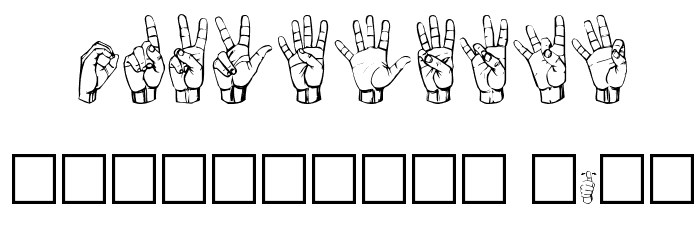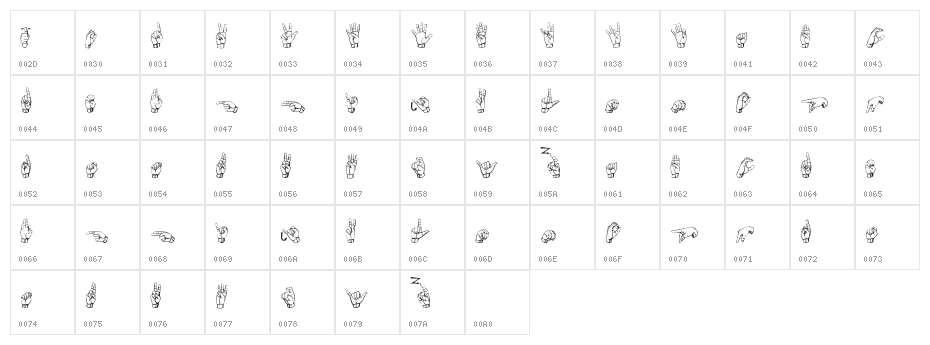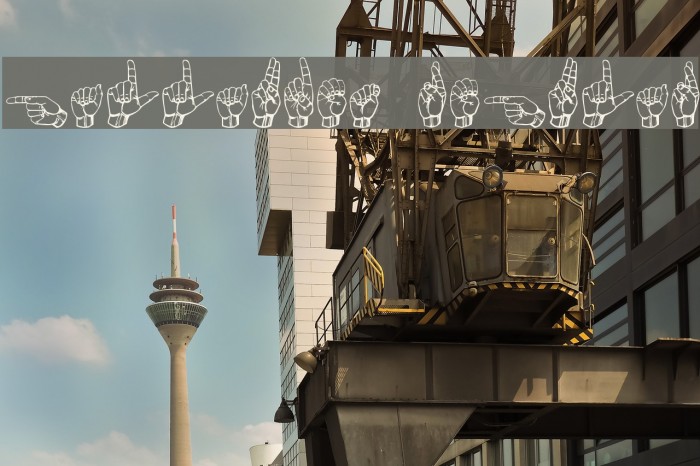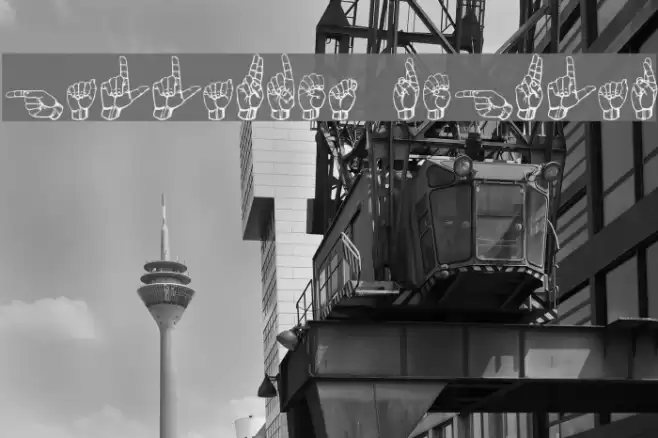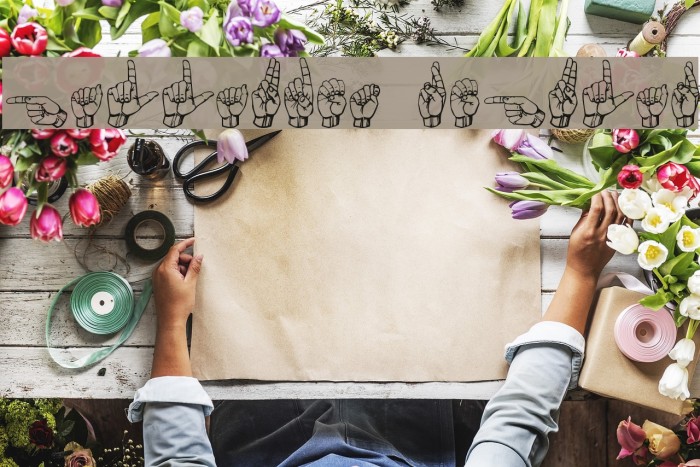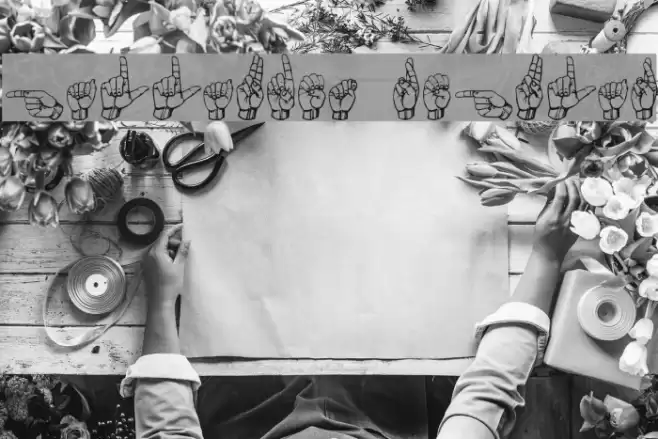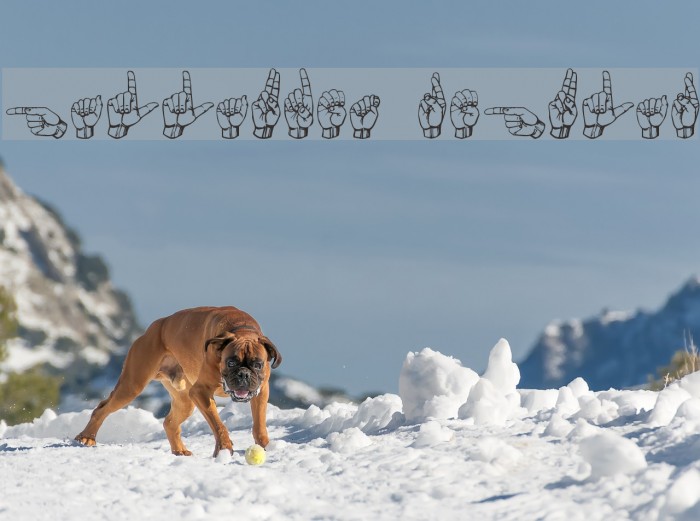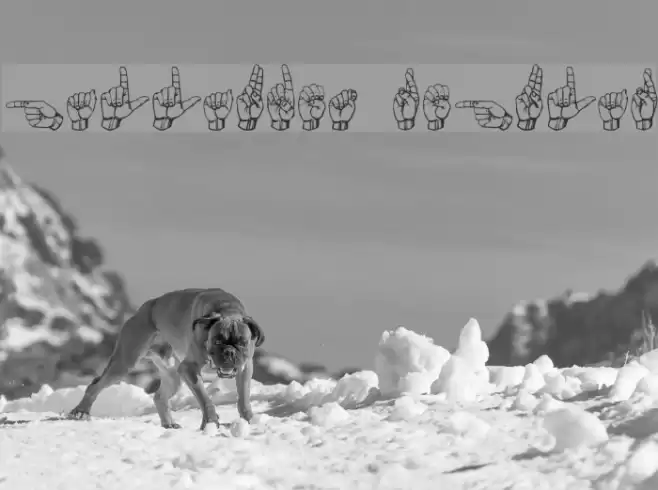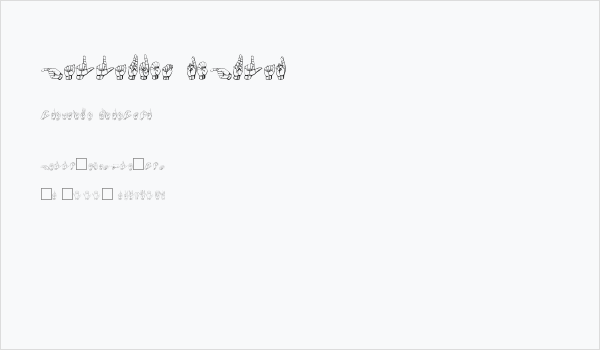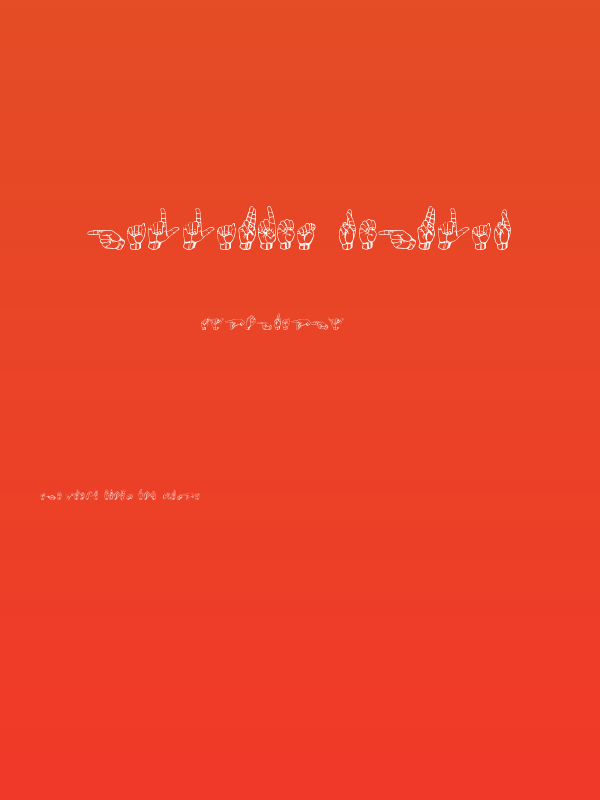
Gallaudet Regular Font
Gallaudet Regular Description
This is not a traditional font but a representation of the American Sign Language (ASL) alphabet. Each letter is depicted through a hand gesture, showcasing the unique and expressive nature of sign language. The illustrations are clear and detailed, capturing the nuances of each hand position. This visual representation serves as an educational tool for those learning ASL, providing a bridge between written language and sign language. The style is consistent, with each hand gesture carefully drawn to ensure clarity and accuracy.
| Overall Style | Educational, Illustrative |
| Use Case | Educational materials, ASL resources |
| Proposed Projects | Ideal for educational materials, ASL learning resources, and inclusive communication tools. |